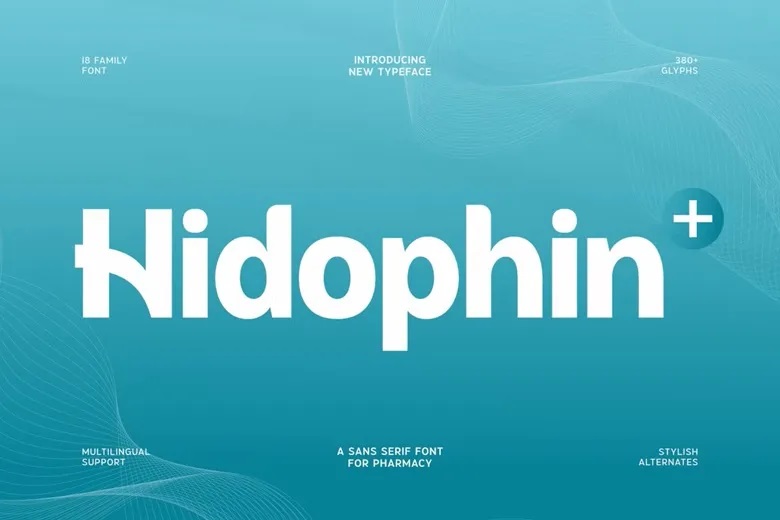
Hidophin Font
Hidophin is a new sans serif font tailored with the pharmacy and healthcare sectors. The simple and clear letterforms give an impression of professionalism and trustworthiness. Its visual traits are quite appropriate in the medicine branding, drugstore names, herbs and other companies in the healthcare industry. It is well designed to be highly readable in print and electronic media due to its functional design structure.
Hidophin is a viable choice to package products, medical logos, drug information labels and interfaces of healthcare websites due to its balanced proportions. Their clean shapes assist in making clear the presentation of the technical information that needs good visual accuracy.
Hidophin Sans Serif Font